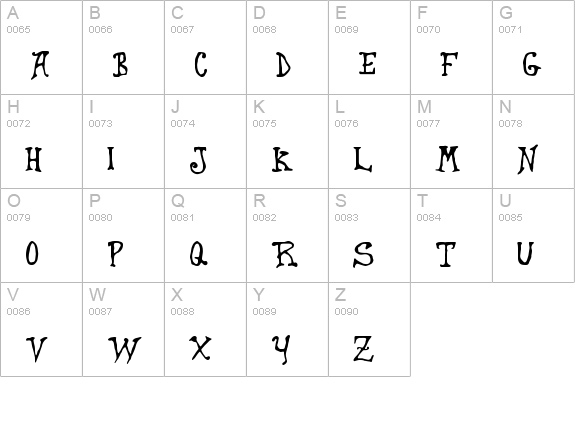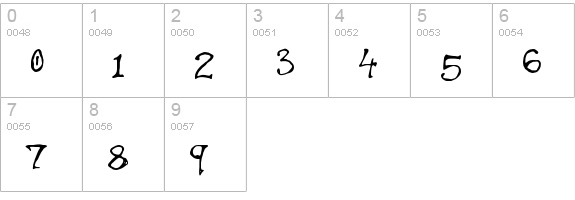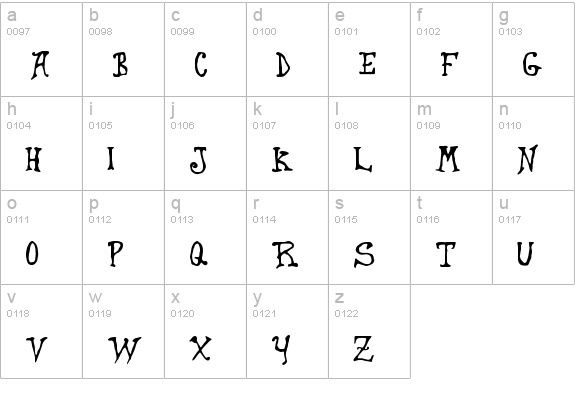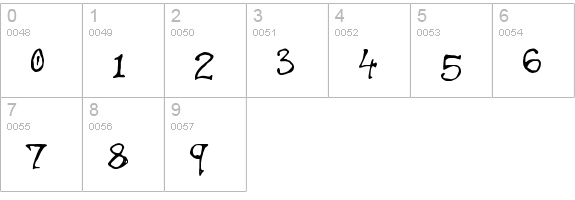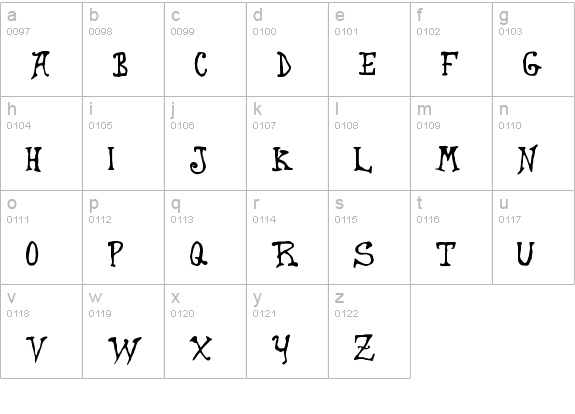
Dragon Harbour Font Details
Dragon Harbour font is a captivating and versatile typeface that exudes a sense of mystique and adventure. Its intricate design features sharp, angular lines that evoke the powerful presence of a dragon's scales, while still maintaining a sense of elegance and sophistication. This unique font is perfect for adding a touch of fantasy and excitement to any project, whether it be for branding, packaging, or creative designs. What's even better is that Dragon Harbour font is completely free to download at FontsMarket.com! So unleash your creativity and incorporate this stunning font into your next project to make a bold statement and leave a lasting impression.